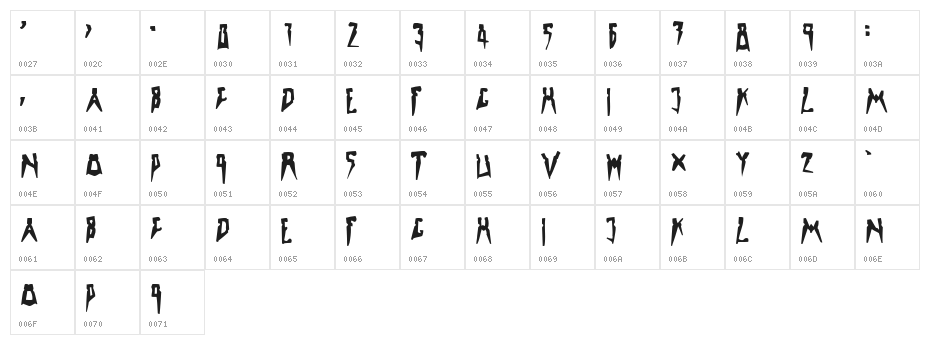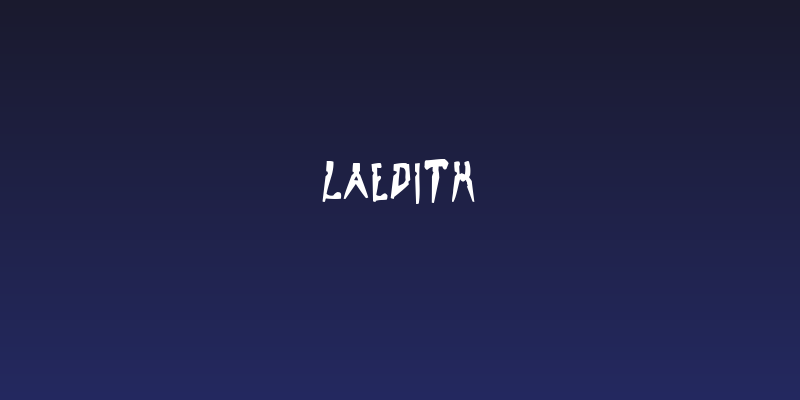
LaEdith Font
LaEdith Description
This font features a bold, angular design with sharp, pointed edges that give it a striking and aggressive appearance. The characters are heavily stylized, resembling jagged shards or spikes, which contribute to its unique and edgy aesthetic. The uppercase and lowercase letters maintain a consistent style, with each character exhibiting a dynamic and energetic form. The numbers and special characters follow the same design principles, ensuring uniformity across the typeface. This font's dramatic and unconventional look makes it ideal for projects that require a bold statement or a sense of intensity.
| Overall Style | Modern, Edgy |
| Proposed Projects | Ideal for music album covers, video game titles, movie posters, or any project needing a bold, edgy statement. |